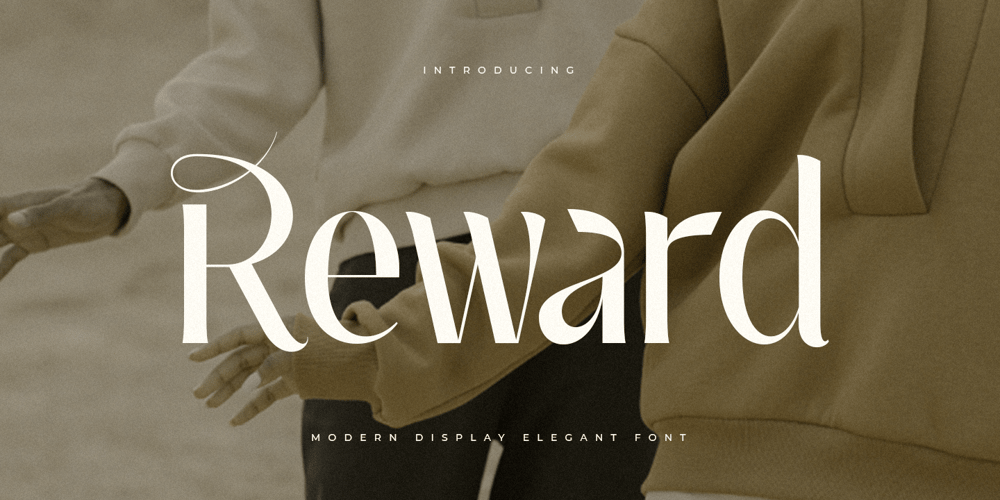
Reward Font Family was designed by Zamroni Hamzah and published by Sensatype Studio. Reward contains 1 styles and family package options. Reward is Modern Display Elegant Font is a well-balanced contemporary font with a fancy, unique, and versatile Luxury serif. It is a serif display font with moderate contrast that perfect for branding projects, logo, wedding designs, social media posts, advertisements and otherWhat’s Included: Character set A-Z , Numerals & Punctuation Accented Characters (West Europe) Works on PC & Mac Recommended using Adobe Illustrator or Adobe Photoshop. Wish you enjoy our font. đŸ™‚